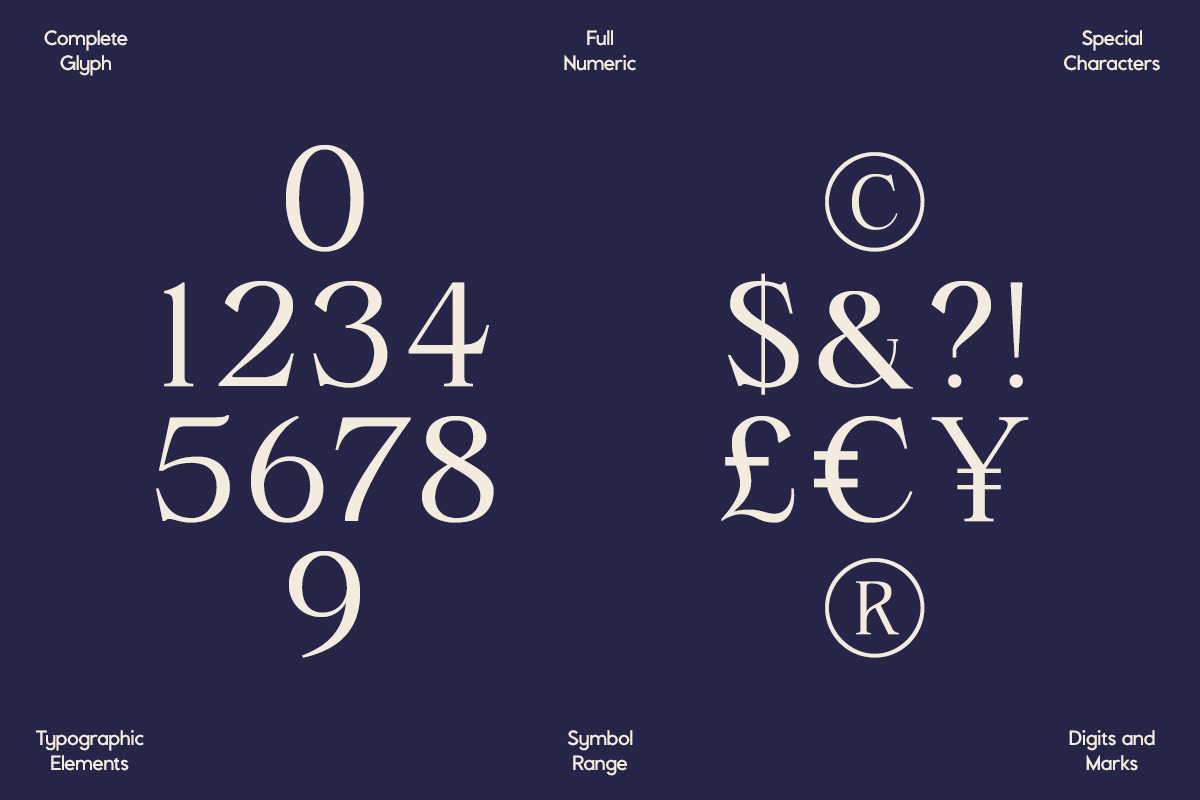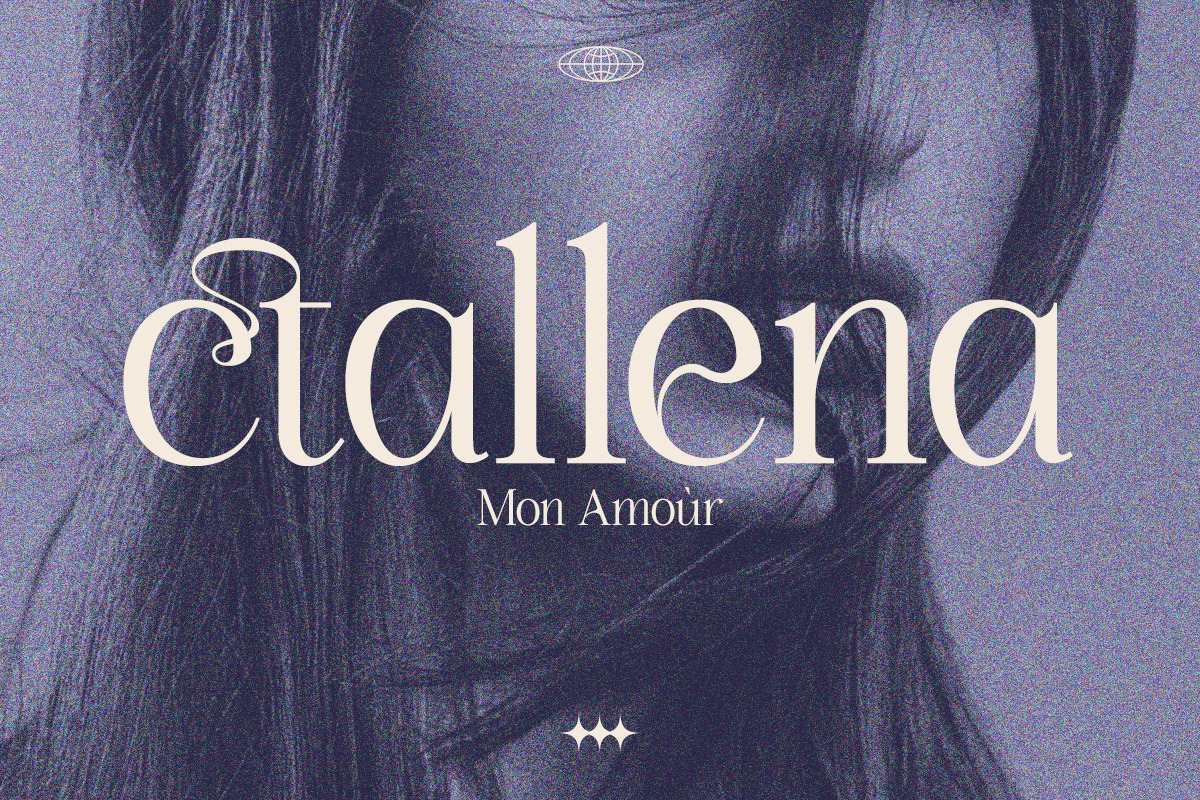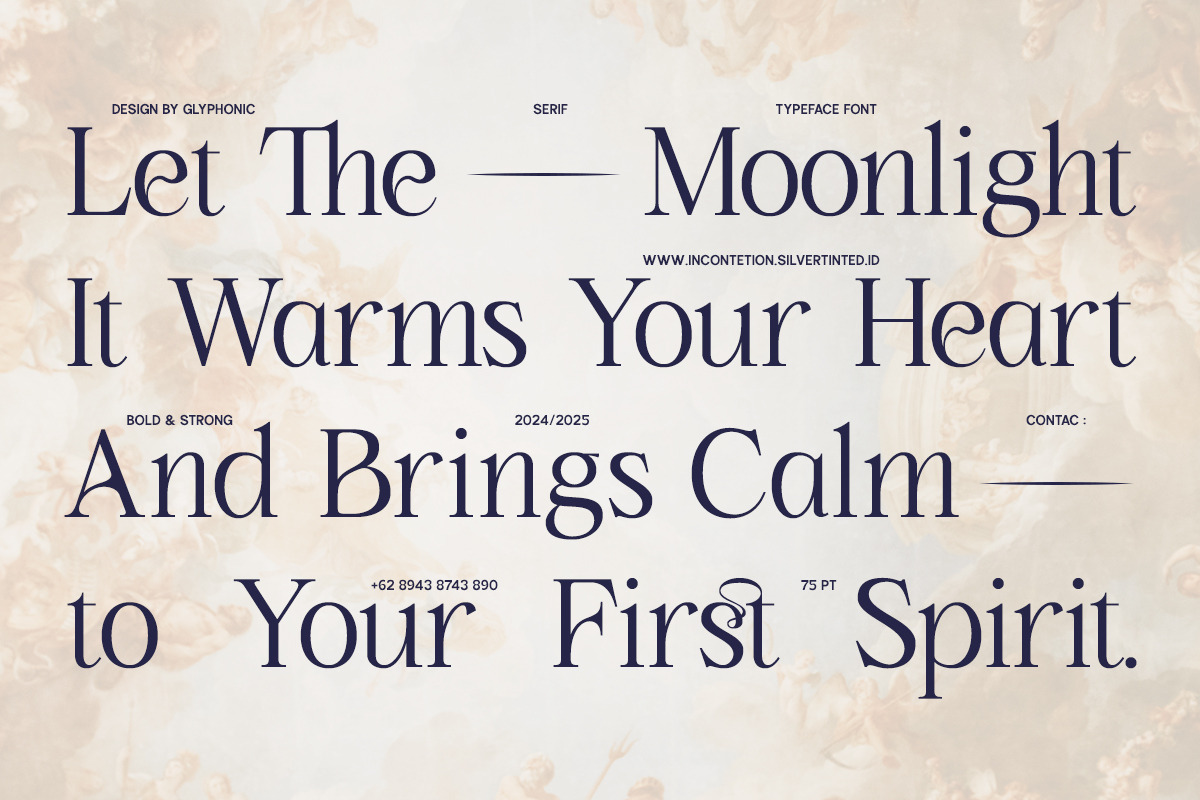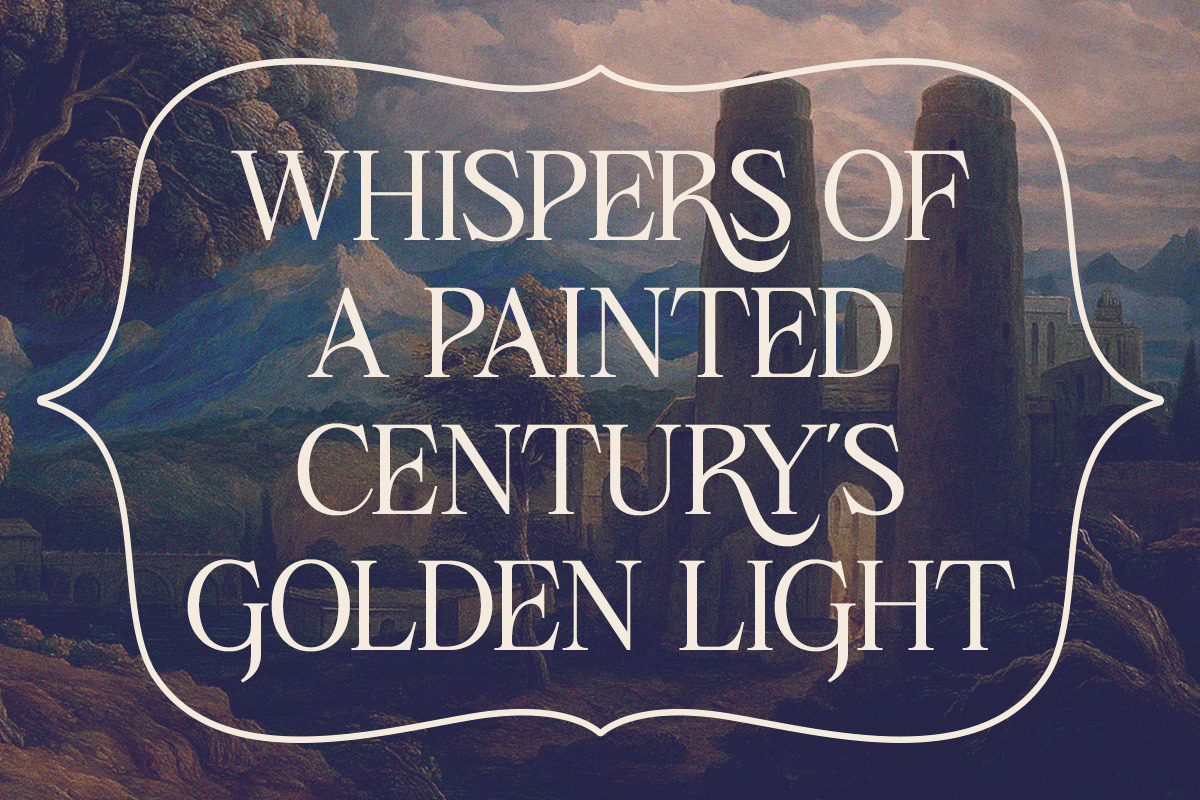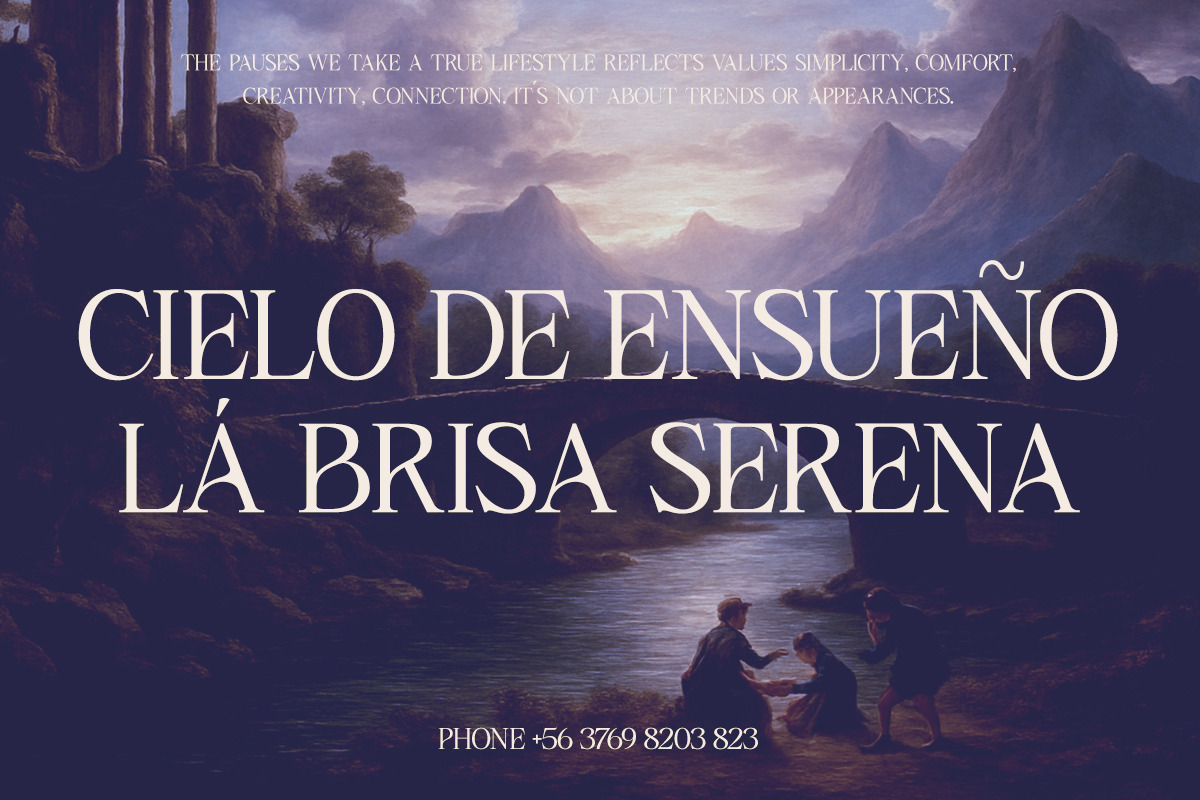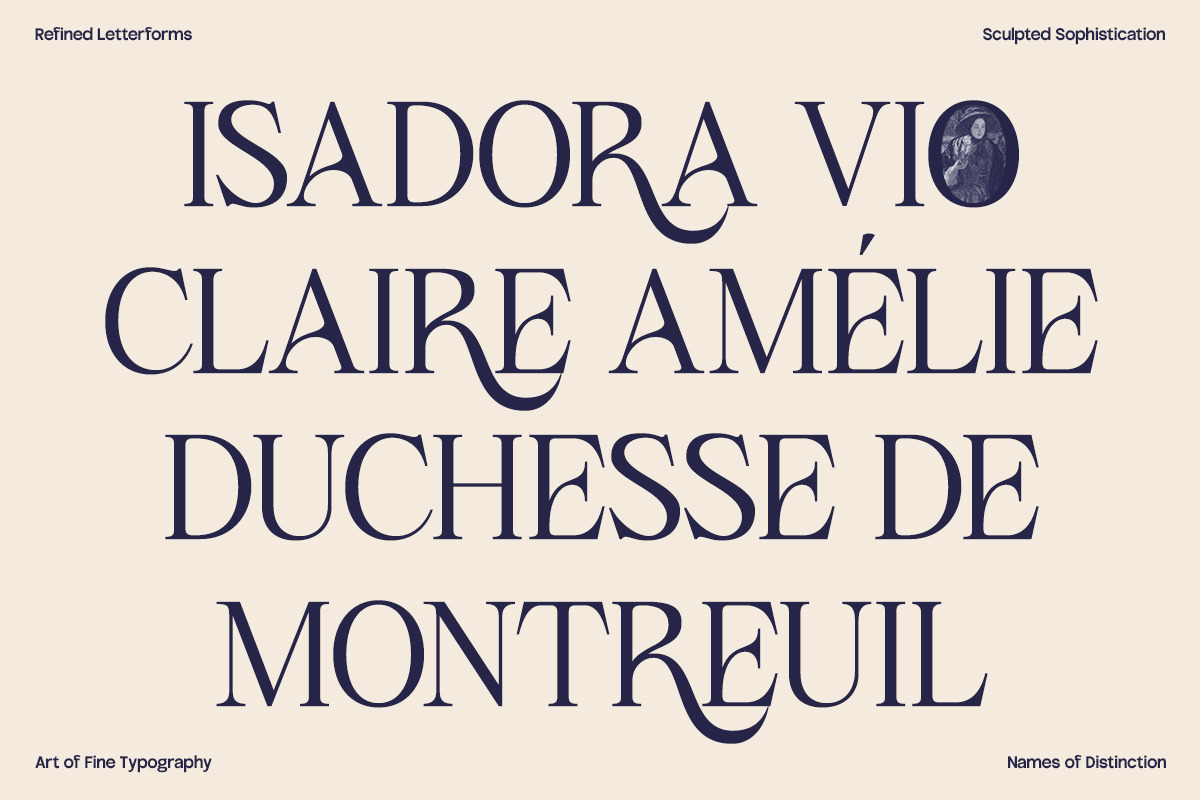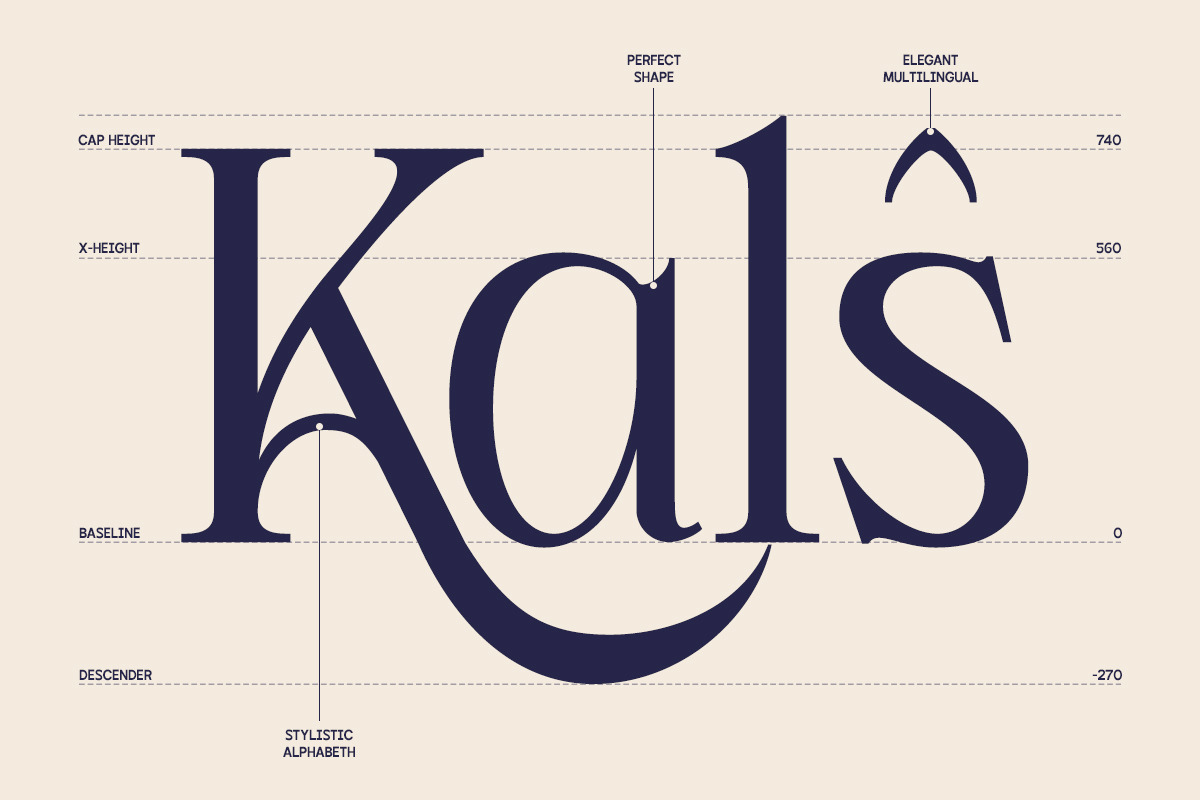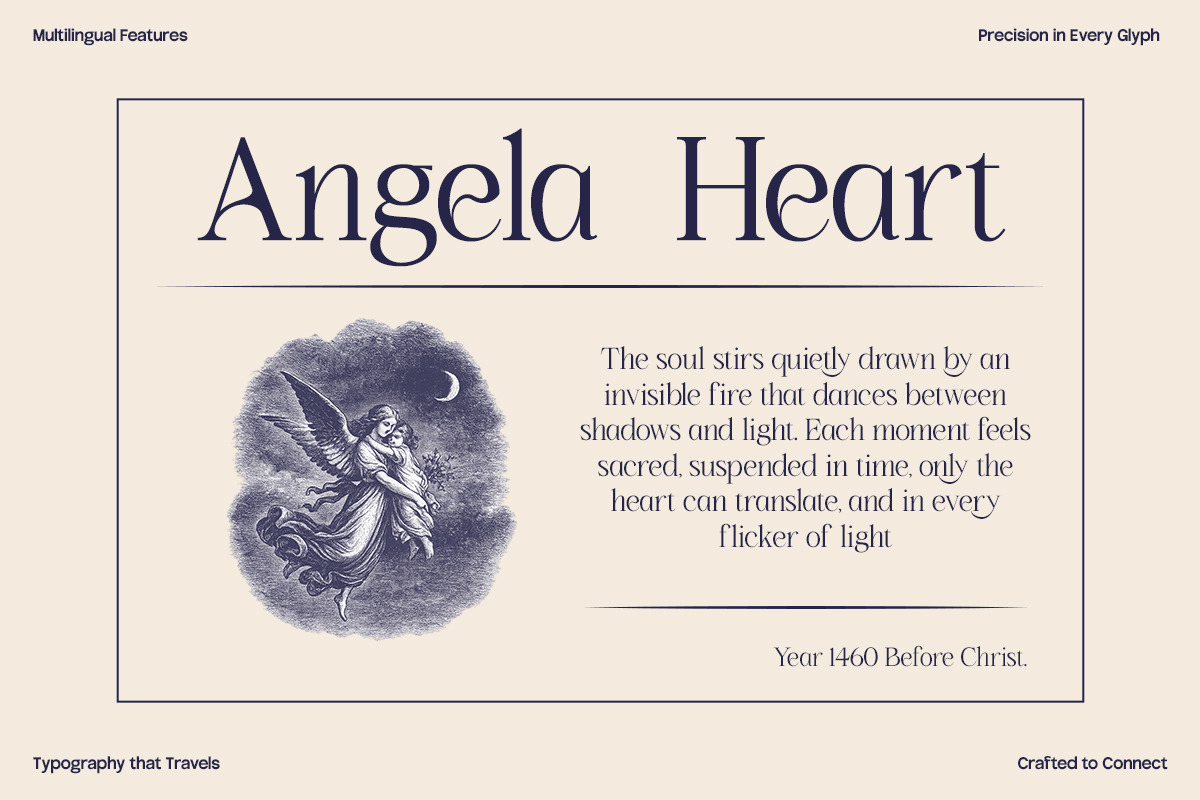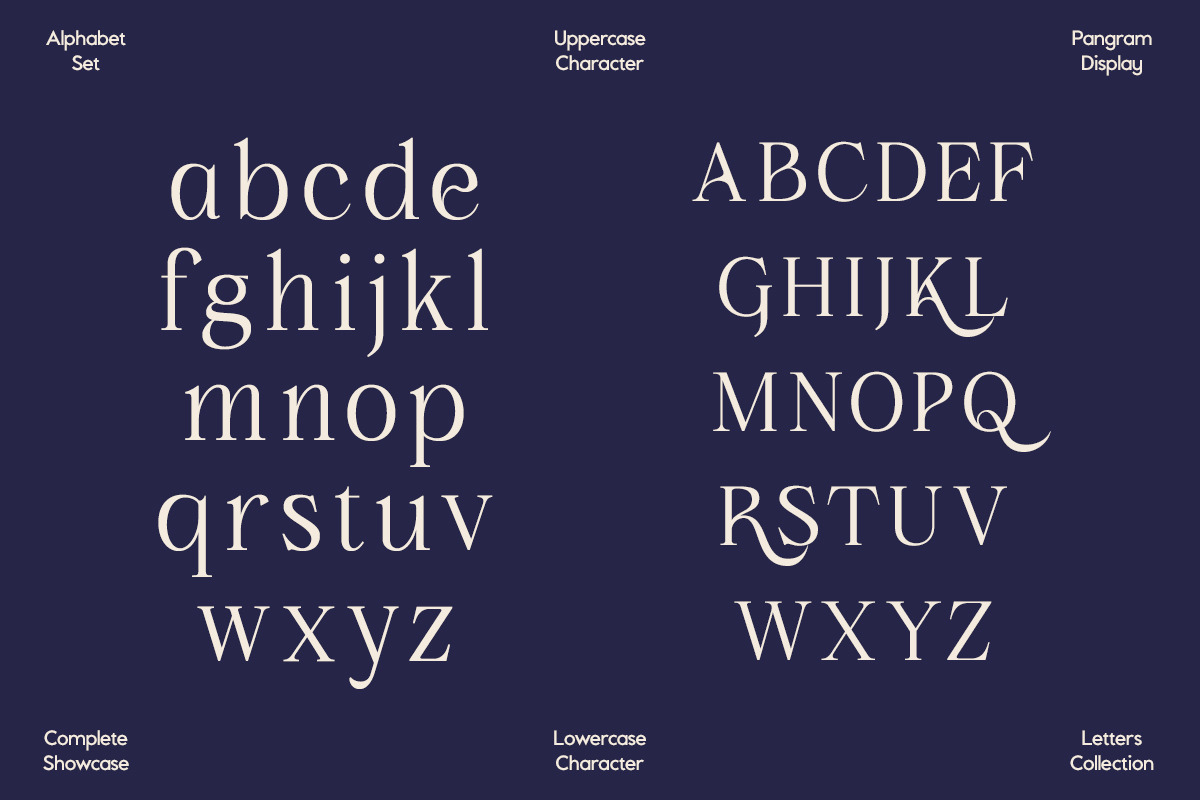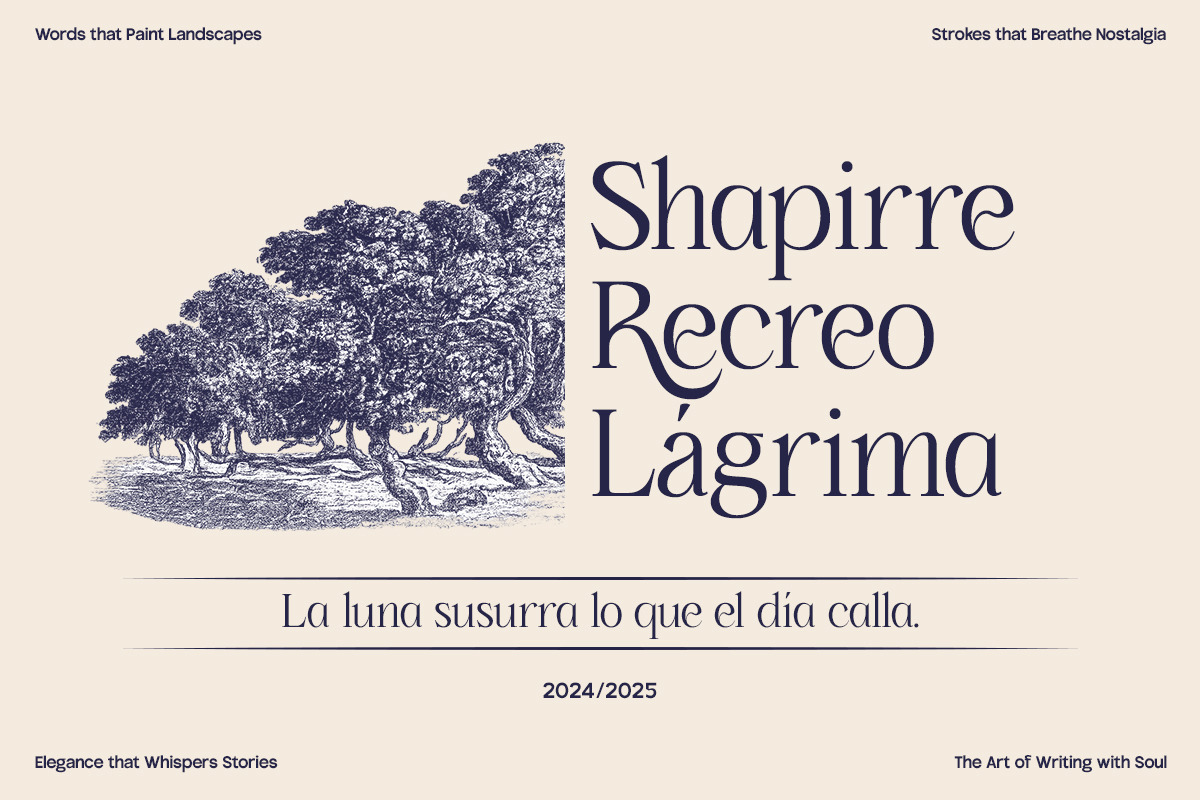
GC Saphone – Sophisticated Serif
GC Saphone is a modern elegant serif typeface that blends timeless refinement with contemporary sophistication. Designed to capture attention while maintaining grace, it’s perfectly suited for headlines, branding, logos, packaging, editorial layouts, and high-end visual identities. Crafted with precision, it leaves a lasting impression of elegance and style.
With its high-contrast strokes, graceful serifs, and refined curves,GC Saphone brings both personality and sophistication to any design. Whether you’re designing for fashion, lifestyle, luxury products, or artistic visuals, this typeface offers versatility and polished aesthetics.
- Ligatures & Stylistic Alternates
Make your design bold, refined, and timeless with GC Saphone.